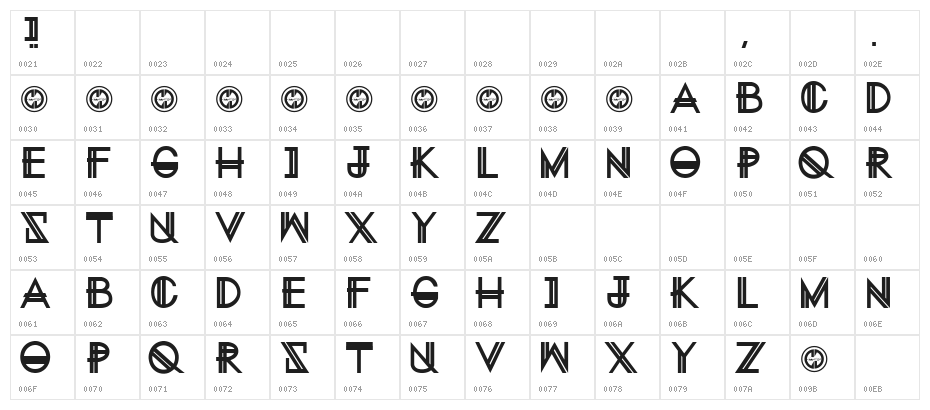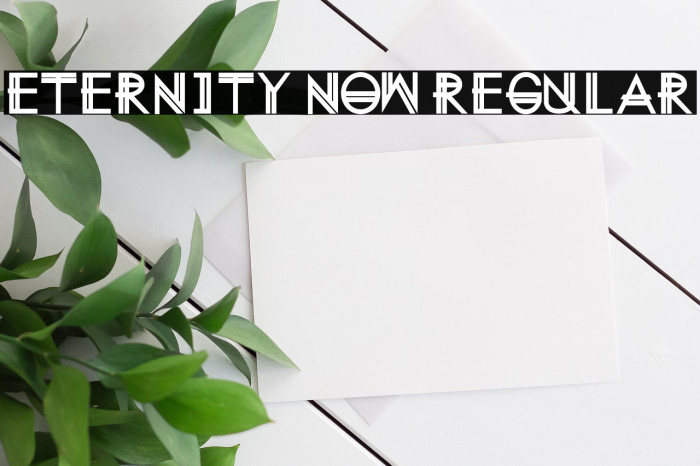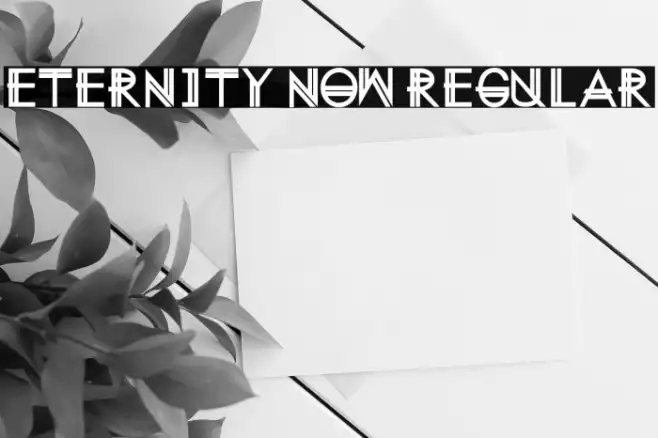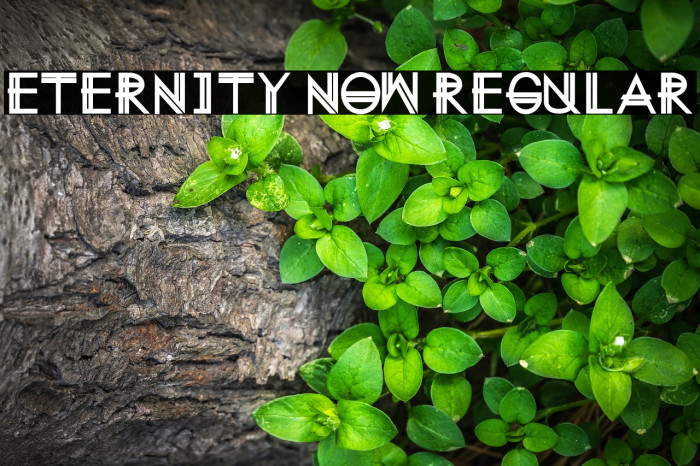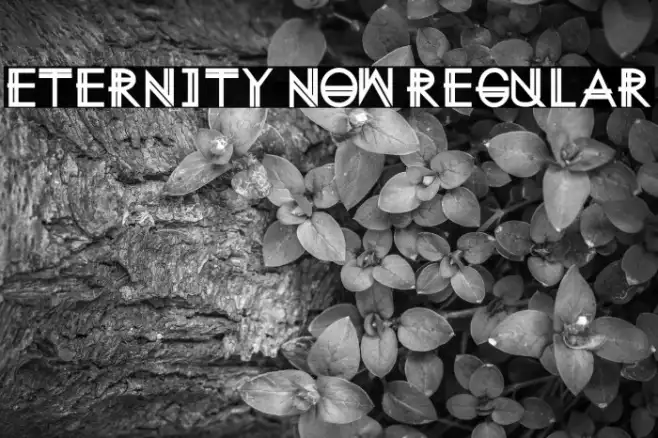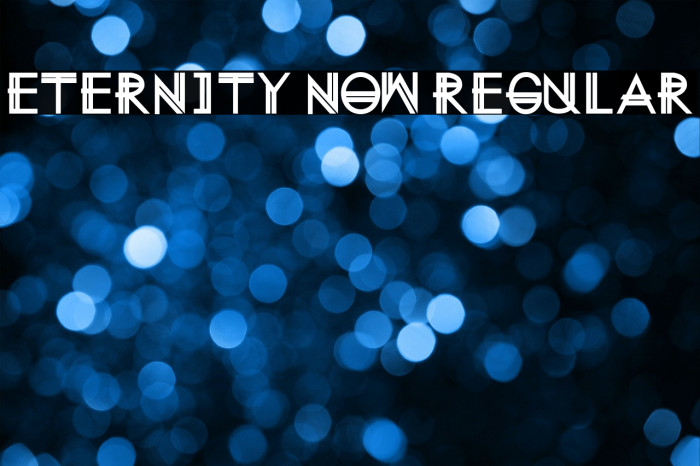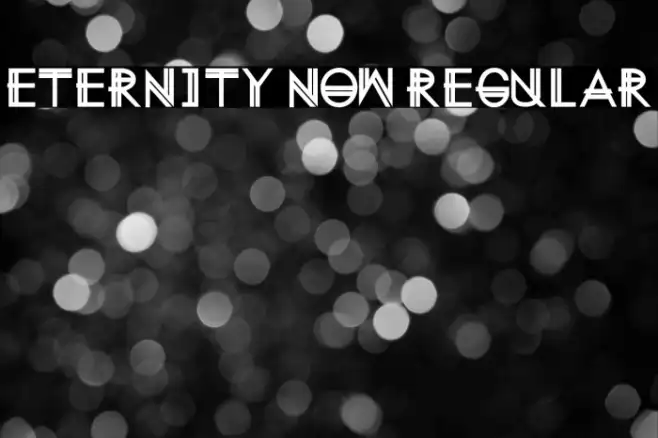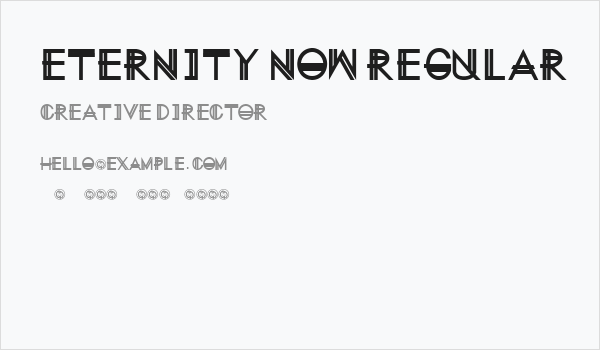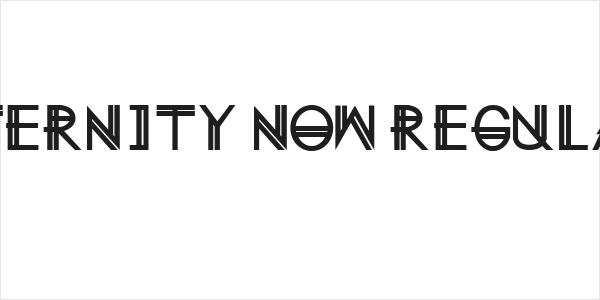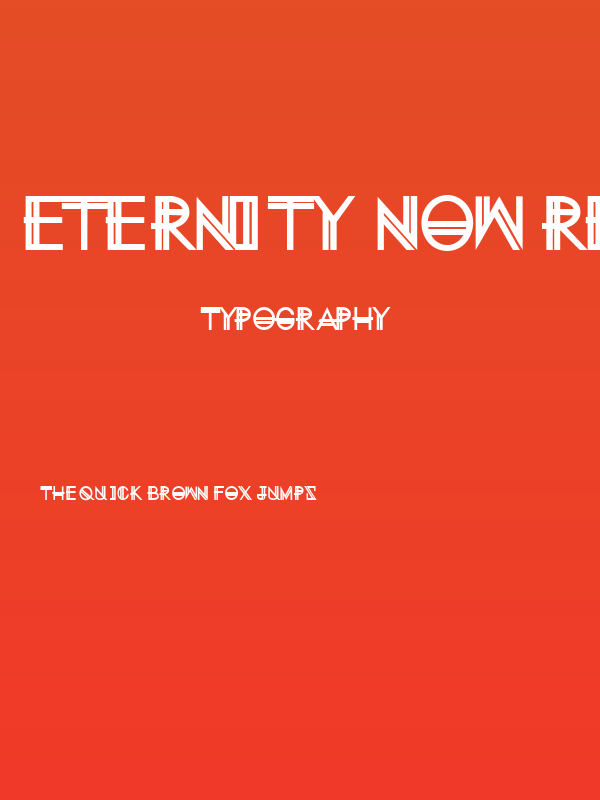
Eternity Now Regular Font
Eternity Now Regular Description
This font features a bold and geometric design with a futuristic flair. The characters are constructed with sharp angles and straight lines, creating a sense of modernity and innovation. The uppercase and lowercase letters maintain a consistent style, with unique elements such as diagonal cuts and intersecting lines that add visual interest. The font's uniform stroke weight and symmetrical forms contribute to its striking appearance. It is well-suited for projects that require a contemporary and edgy look, making it ideal for branding, posters, and digital media.
| Use Case | Logos, Headlines |
| Proposed Projects | Ideal for branding, posters, digital media, and projects requiring a contemporary edge. |